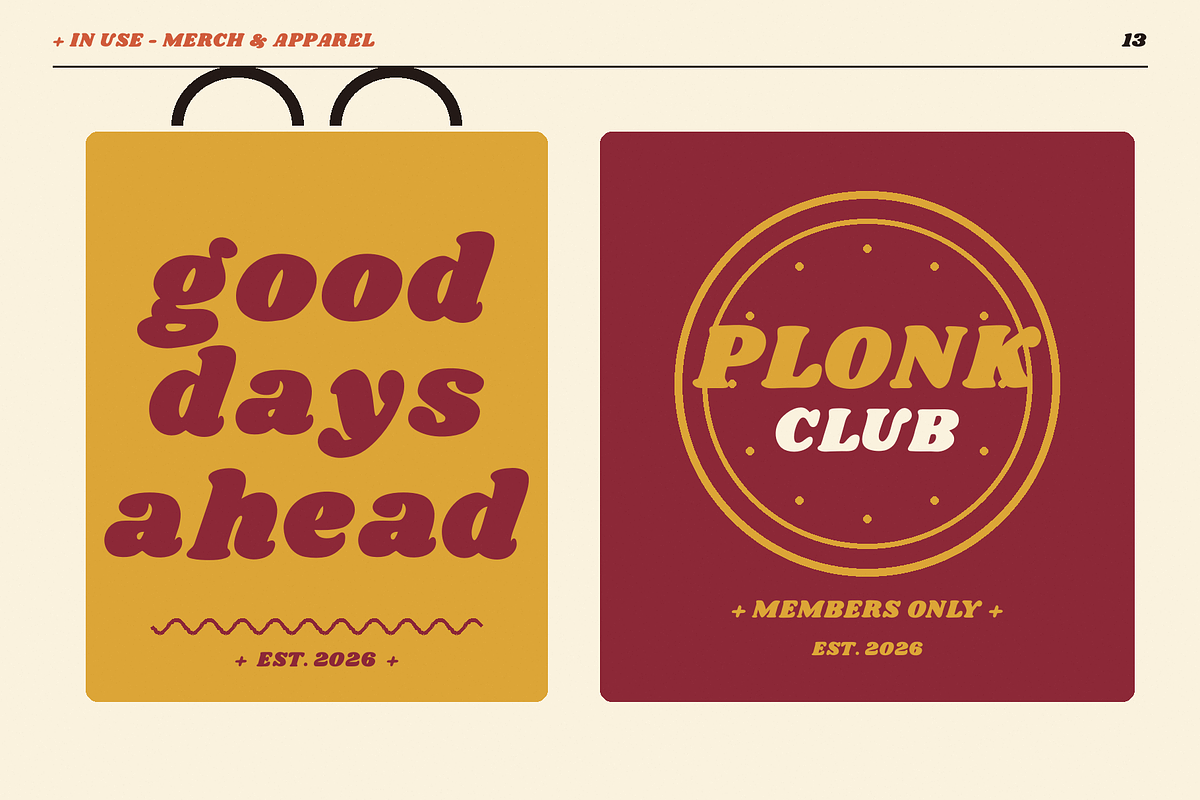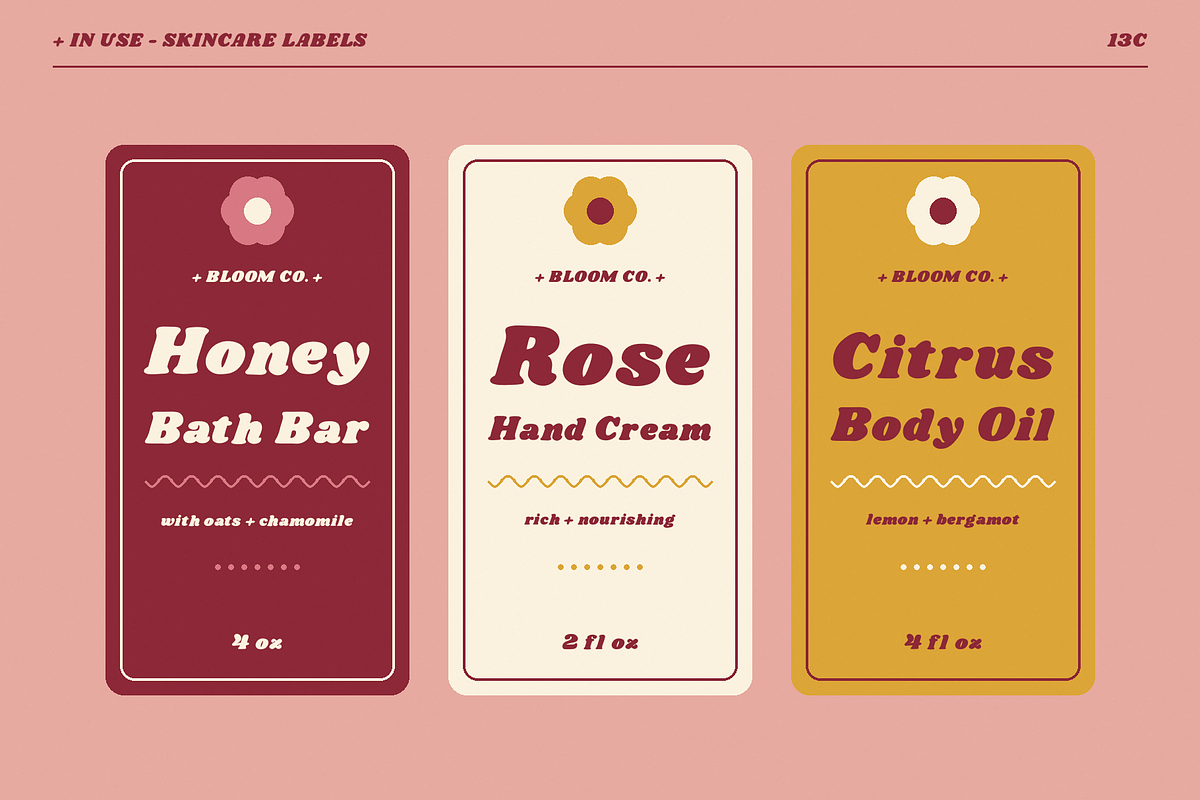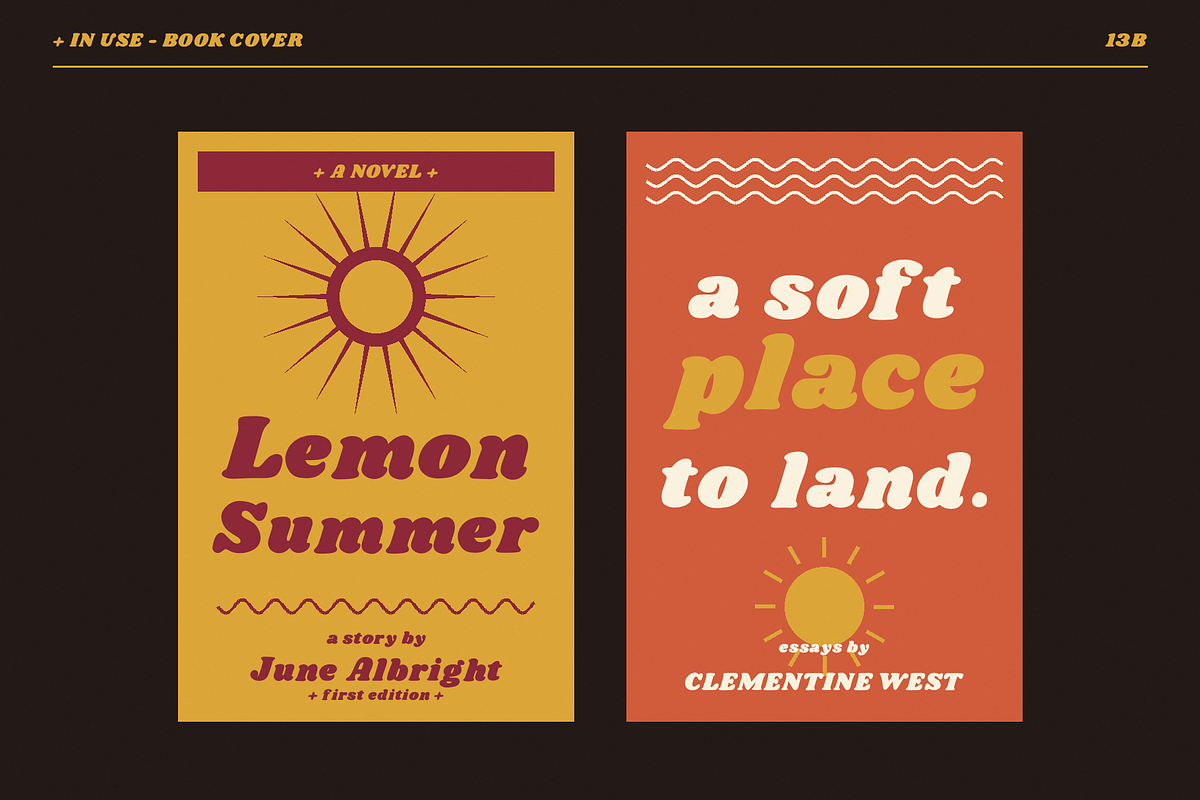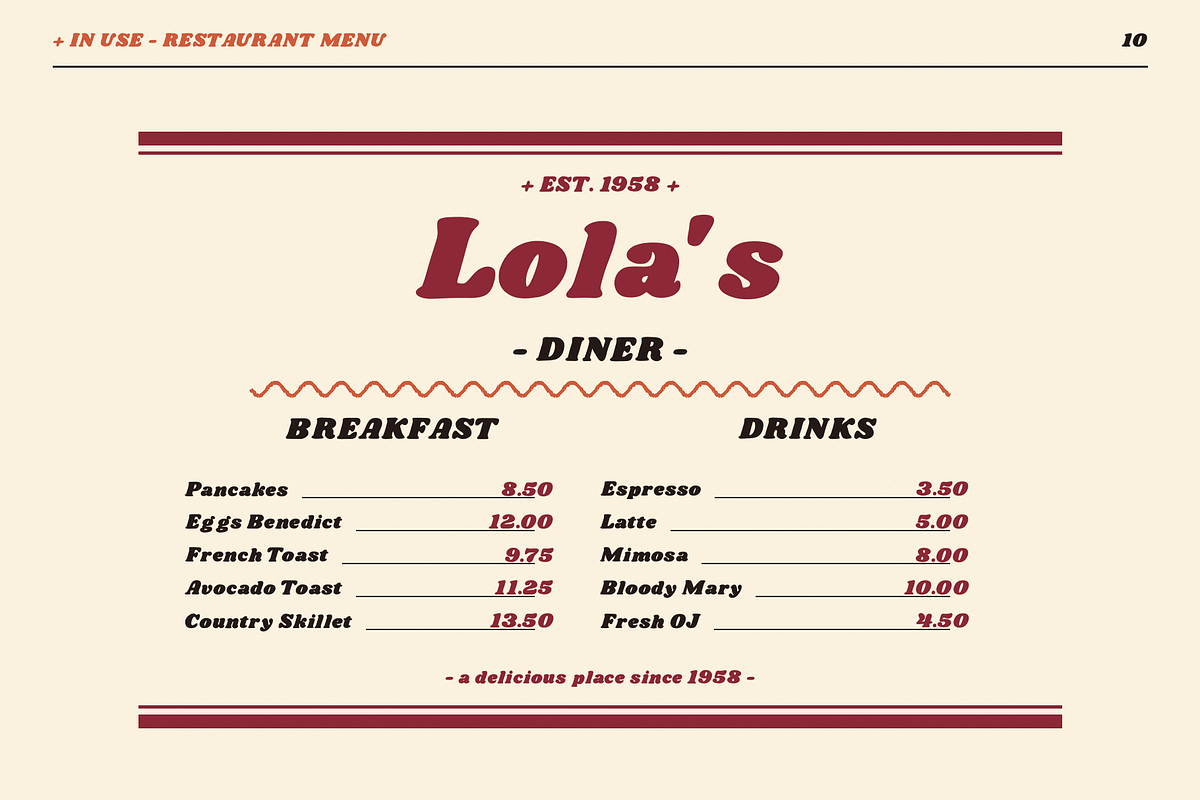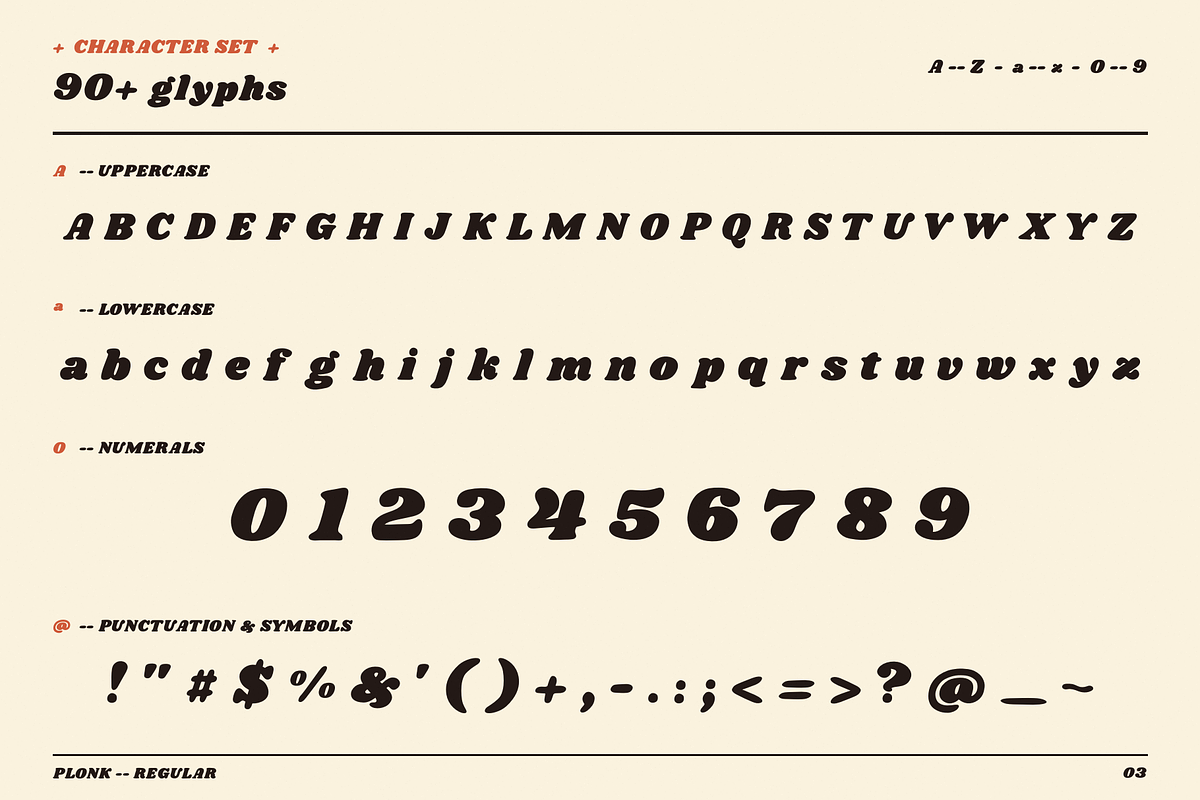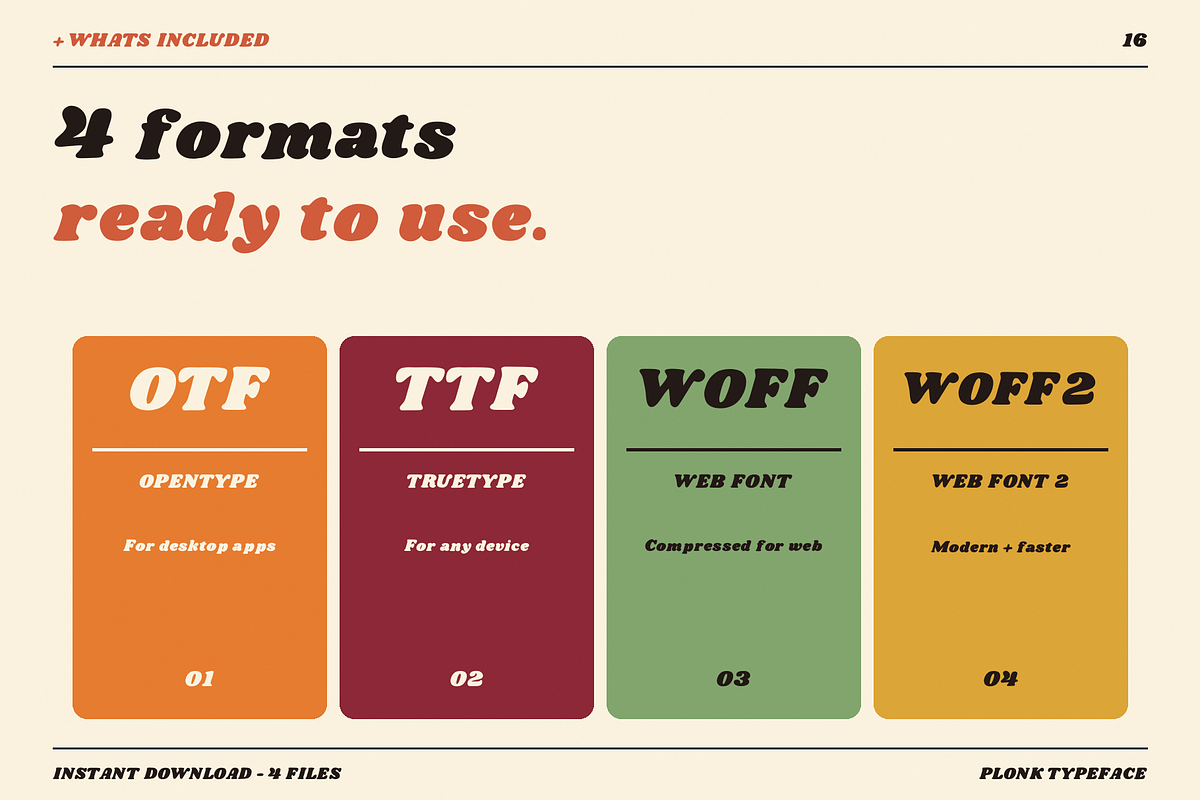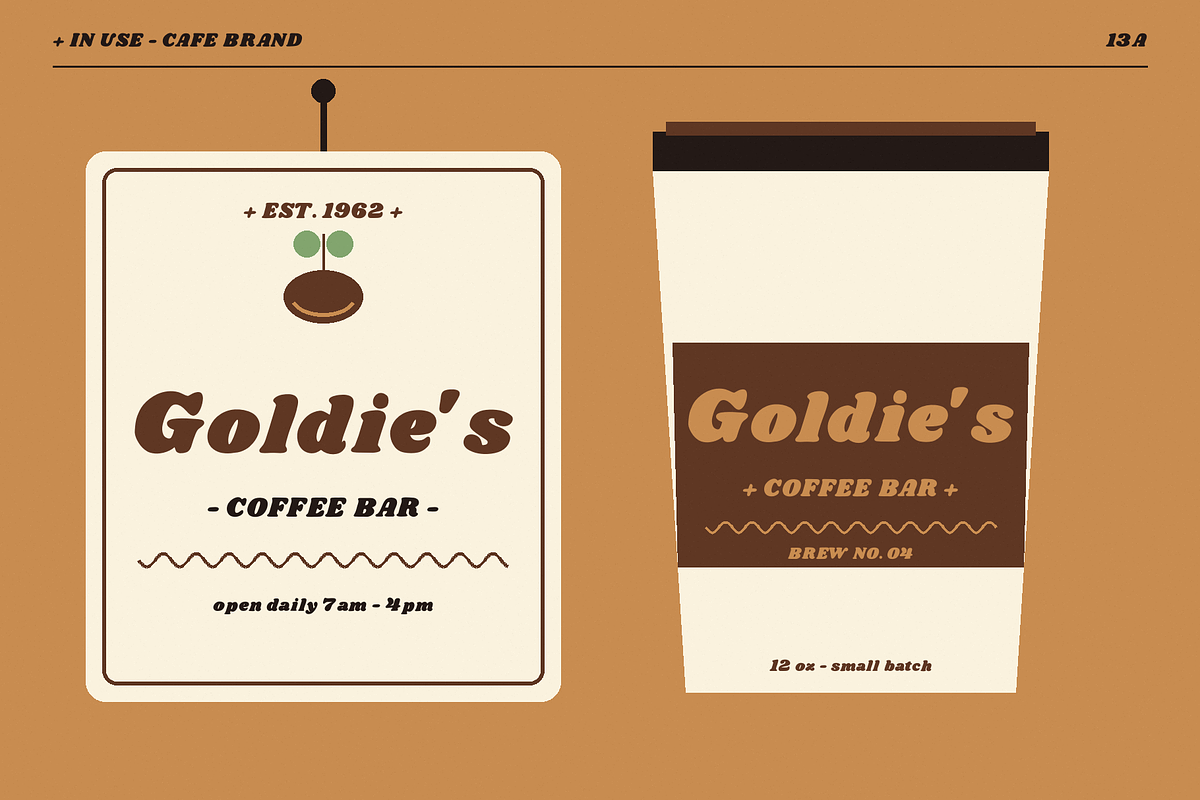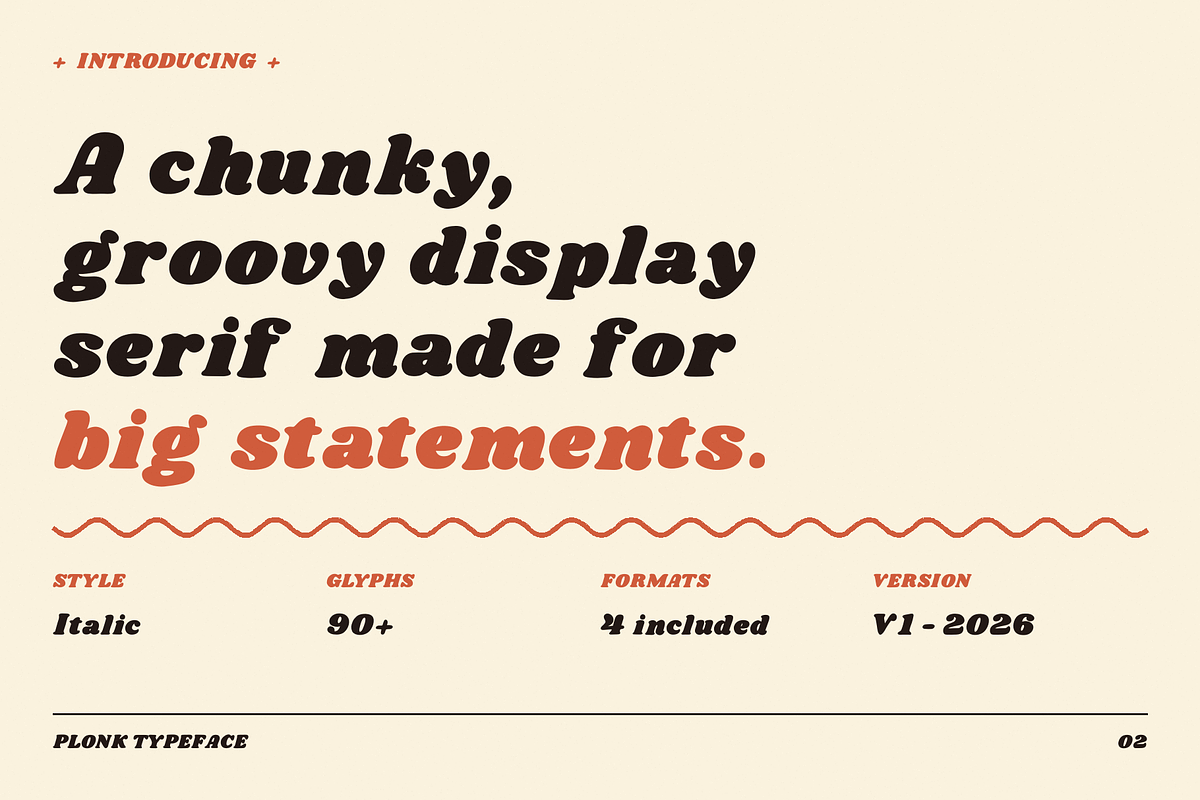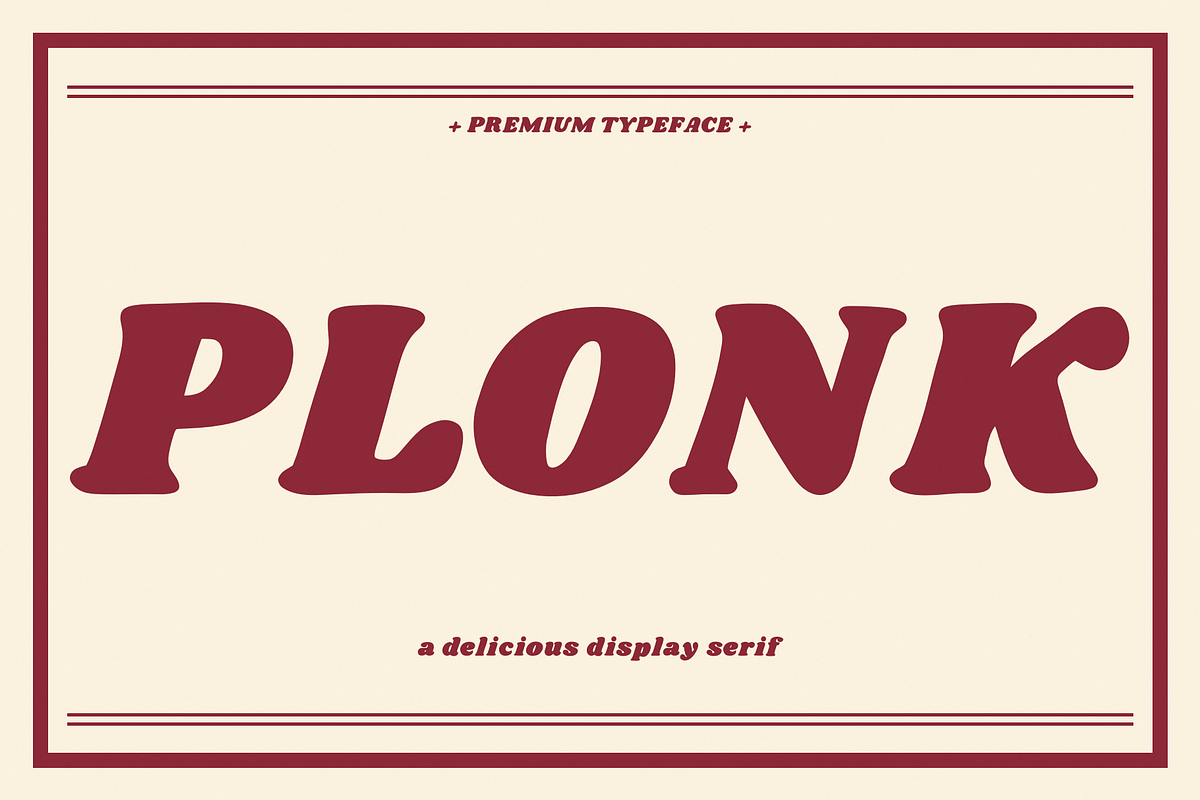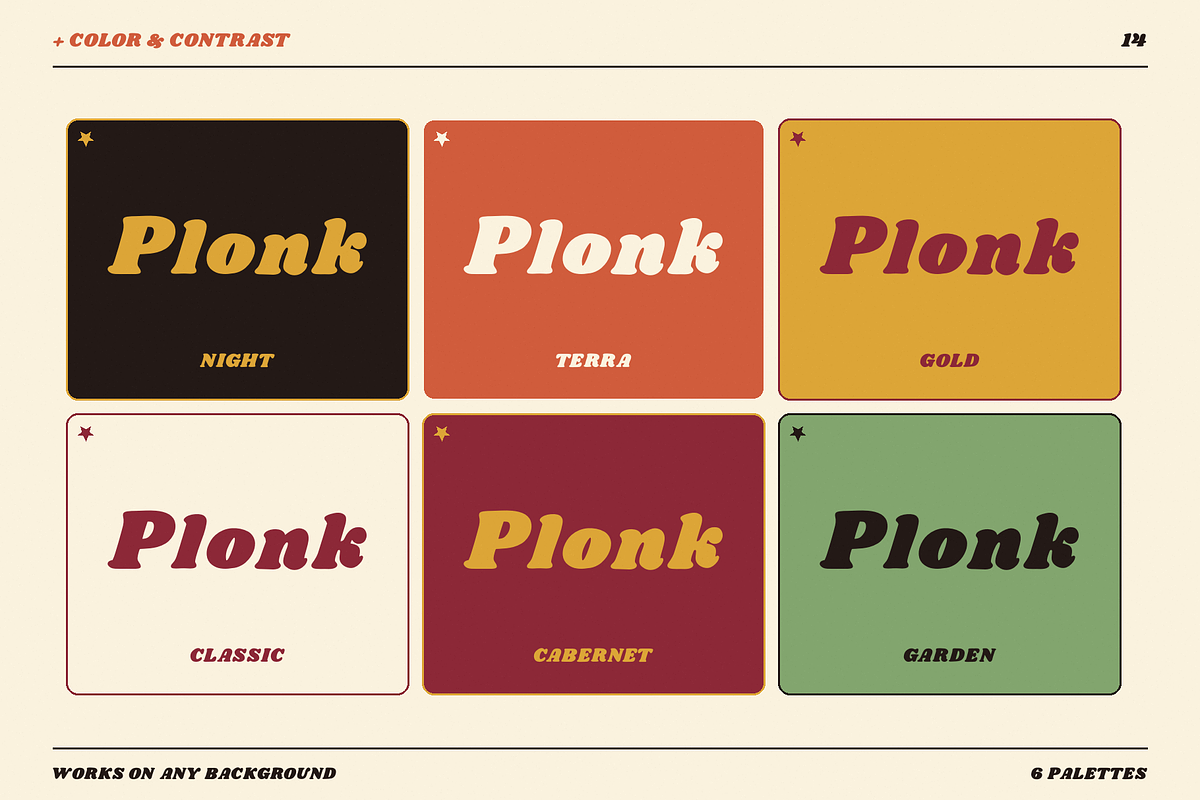
PLONK - Delicious Display Serif
PLONK — A Delicious Display Serif
A font that turns every word into a statement.
PLONK is a chunky, groovy display serif with the soul of the 70s and the character of the brightest sign on the street. Made for those who aren't afraid to take up space: thick strokes, soft curves, and unmistakable retro energy make it perfect for projects where the visual needs to speak loud.
Where it shines:
Vinyl record covers, concert and festival posters, wine and hot sauce packaging, craft product labels, retro diner and café menus, magazine and book covers, merch, skincare and cosmetics labels, postcards, coffee shop branding — anywhere you need warm, nostalgic, sun-faded aesthetics.
- 90+ glyphs: uppercase, lowercase, numerals, punctuation & symbols
- Extended punctuation set
The mood:
Warm sunsets, vinyl players, homemade lemonade, posters on the wall, the faded sign of your favorite coffee shop. PLONK is about slow living, good taste, and big letters.
brand designers, illustrators, small business owners, creative studios, food & beverage projects, indie magazines, and anyone tired of sterile sans-serifs.